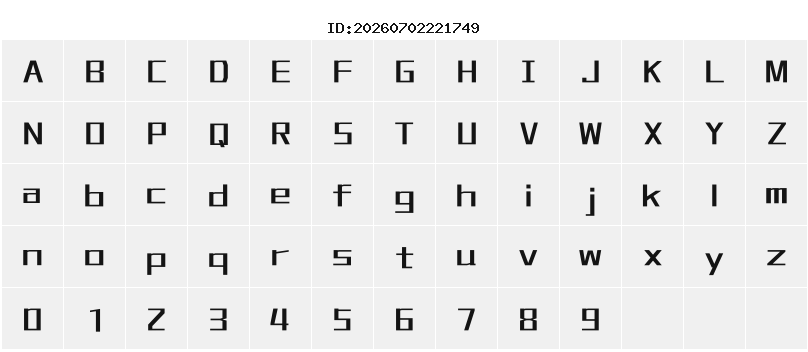
226-上首机甲体 Preview
• Font Name: 226-上首机甲体
• Font ID: 226-SSJiJiaTi:Version 1.00
• Full Font Name: 226-上首机甲体
• Version: Version 1.00 February 14, 2023, initial release
• PostScript Name: 226-SSJiJiaTi
• Character Count: 7569
• Manufacturer: 上首造字
About 226-上首机甲体.ttf
226-上首机甲体.ttf is a modern, elegant sans-serif font designed for ultimate readability and visual harmony. Perfect for branding, headlines, web design, and print materials.